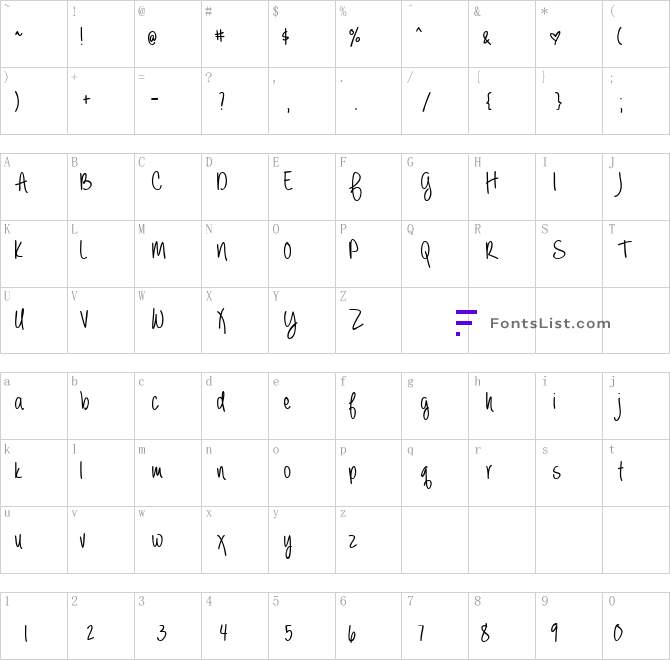
- Font Name:Always Forever
Always-Forever-Bold.ttf is a very beautiful artistic font, Always-Forever-Bold.ttf is widely used in the design and printing of various books and pictures,Always-Forever-Bold.ttf has a strong visual impact,Always-Forever-Bold.ttf is a commonly used font in newspapers, magazines and books, and is used in posters, e-commerce Poster design, store design, logo design, font design and other fields.Always-Forever-Bold.